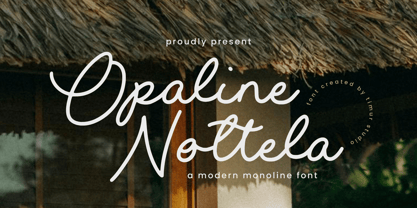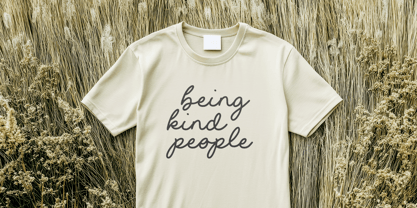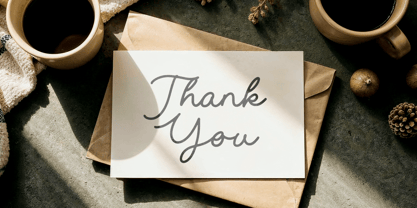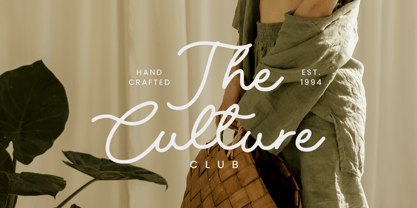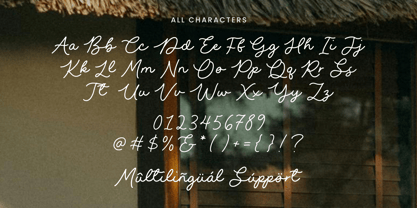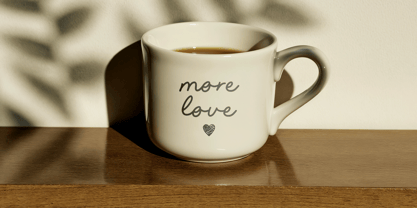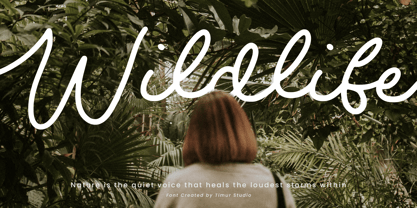
Opaline Nottela
Die Schriftfamilie Opaline Nottela wurde von Ibnu Nur Rahman entworfen und von Timurtype veröffentlicht. Opaline Nottela enthält 1 Stile. Mehr über diese Familie
Introduced by Timurtype Studio! Opaline Nottela is a Modern Monoline Font This font is a modern monoline font with smooth, balanced strokes and a refined minimal look. Its clean flow and understated elegance make it perfect for branding, logotypes, and stylish contemporary designs. Opaline Nottela Font also supports multilingualism Enhance your designs with our original fonts, feel free to comment or provide feedback, Enjoy the fonts 😊 Thank You